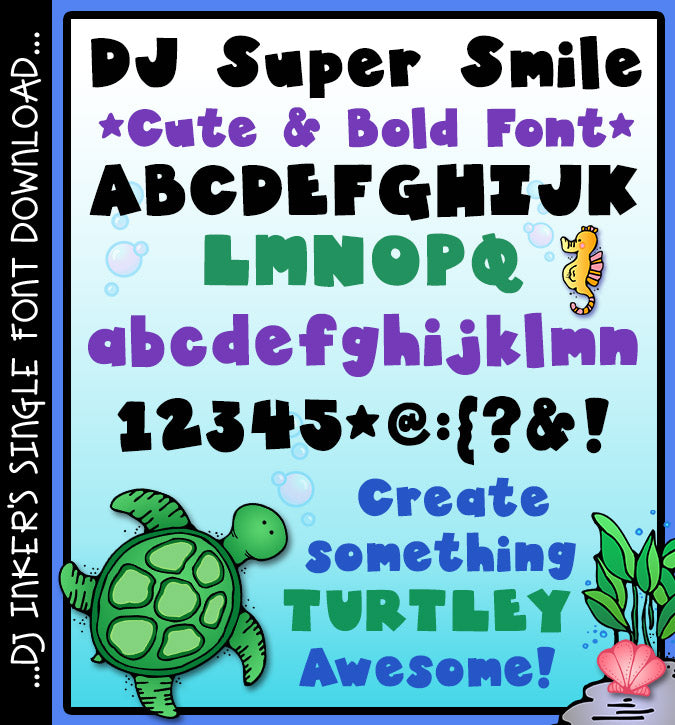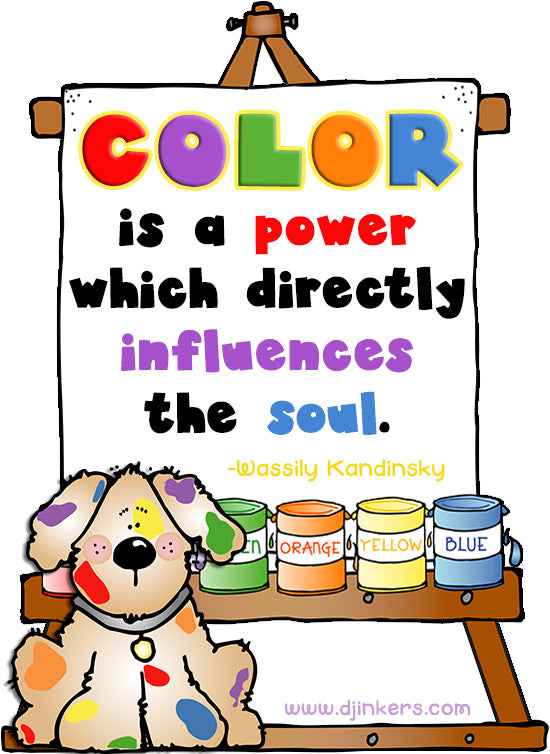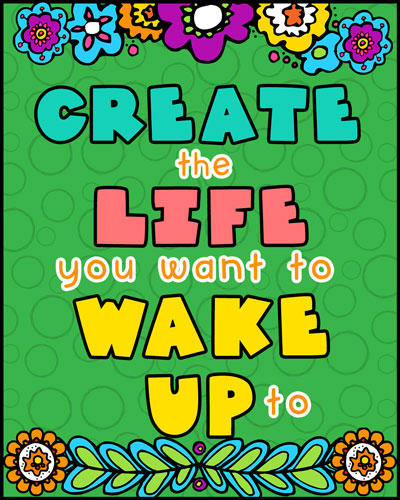
DJ Super Smile - Bold Font Download
This cute font by DJ Inkers will be a super addition
to your collection. The bold & playful block lettering will
be perfect for headlines, posters, parties, school announcements, and creative
Looking for a great sidekick? You'll love DJ Smile - the open outline version of this font... and a DJ classic!
Also includes basic Spanish characters!